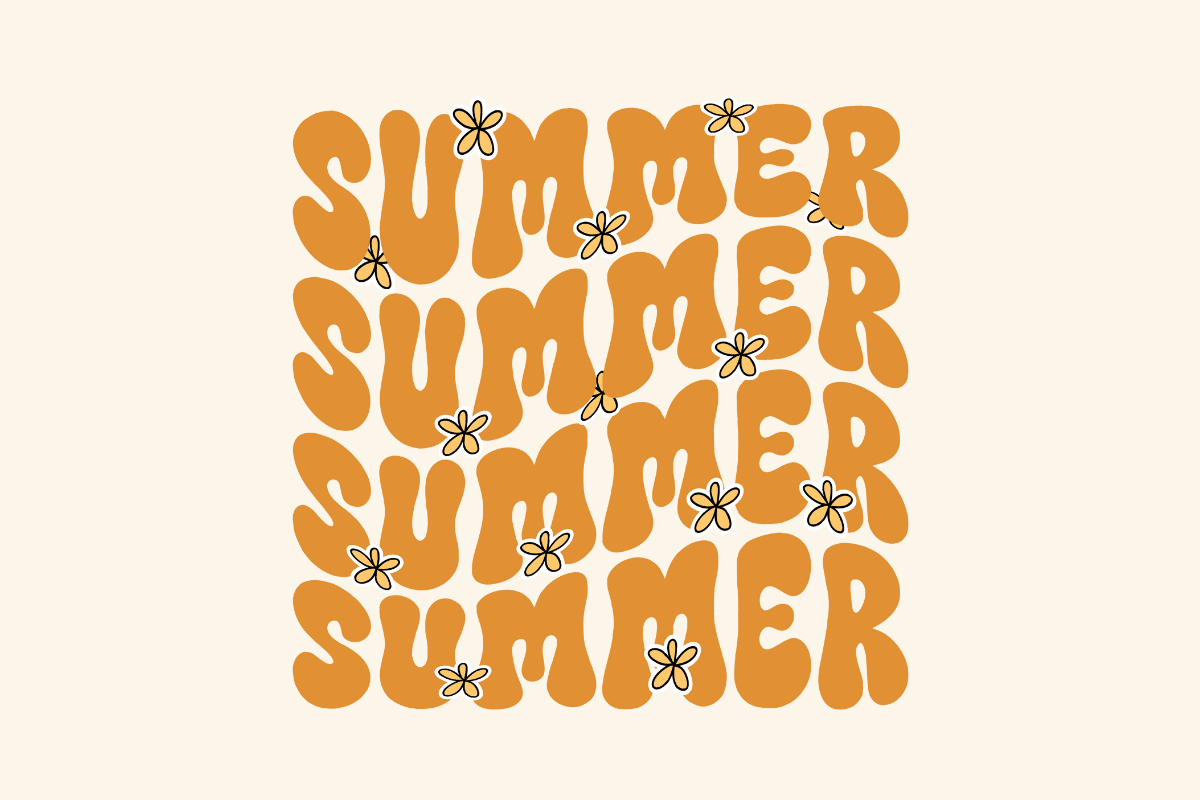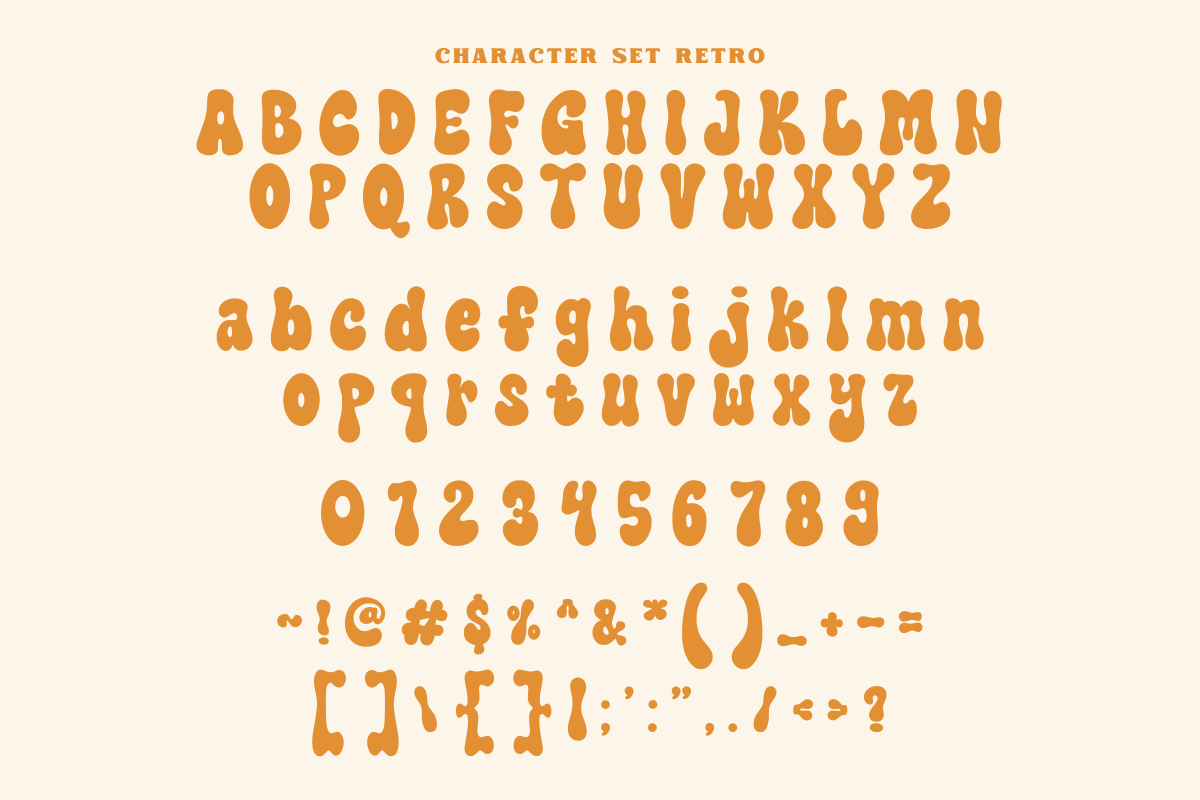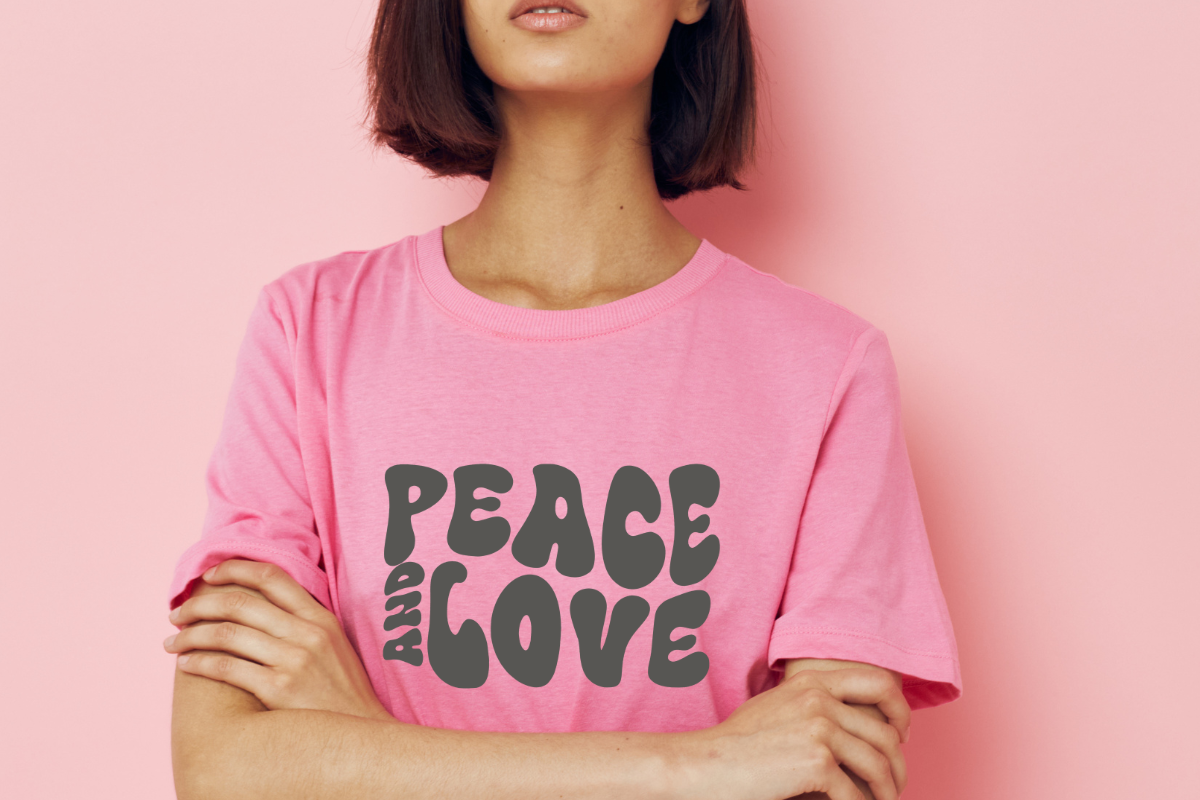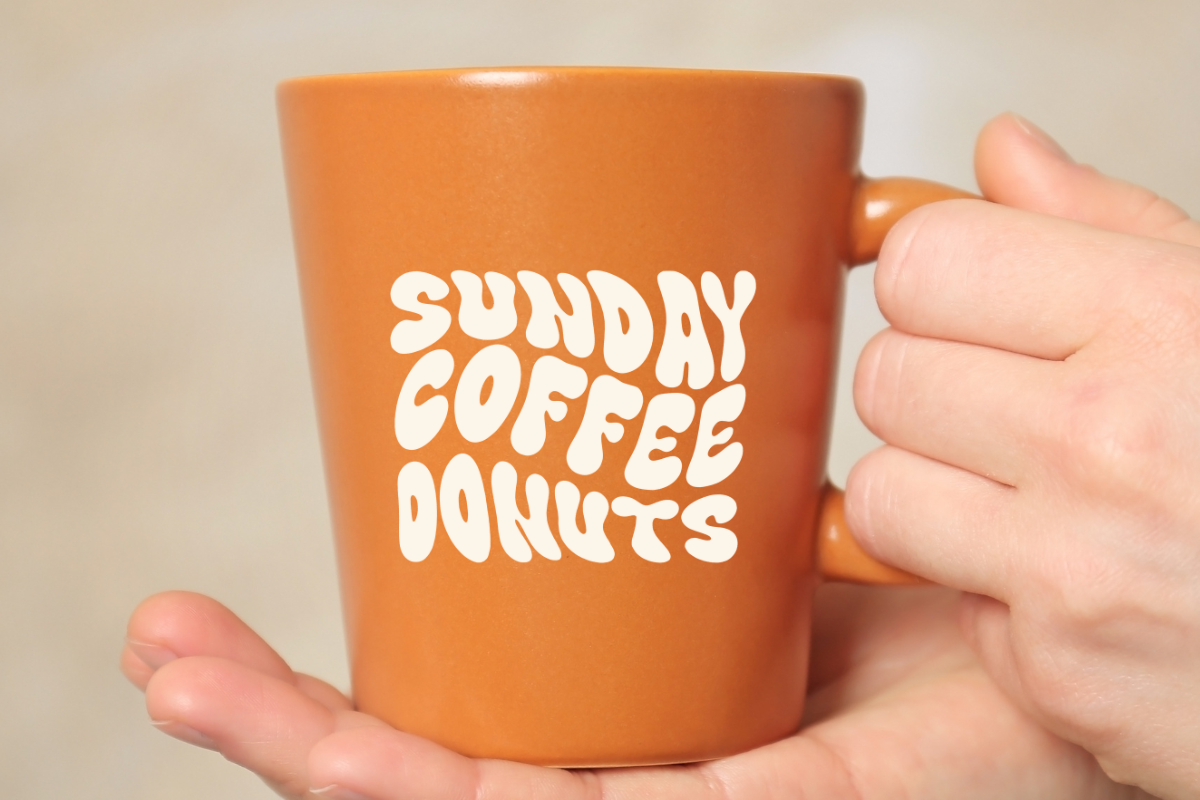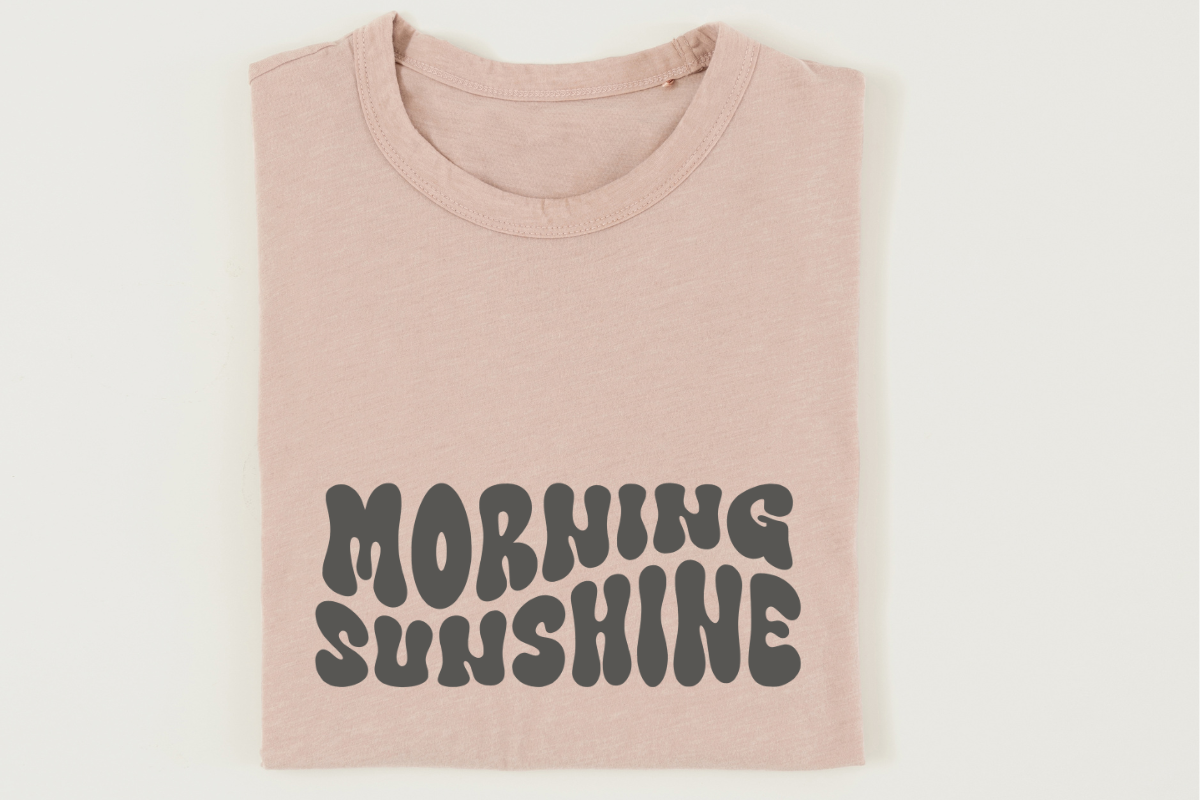
Super Sunday
Super Sunday is a modern retro groovy font. It is very suitable for retro quote lettering which is currently popular, it can also be used for T-shirts, hoodies, mugs, headlines, YouTube videos, packaging, posters, and much more!